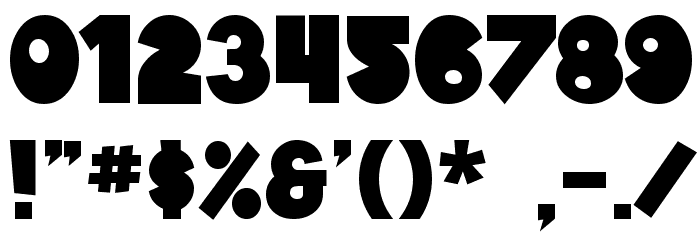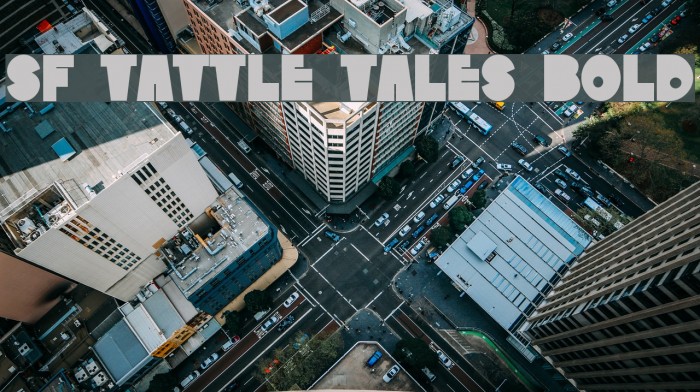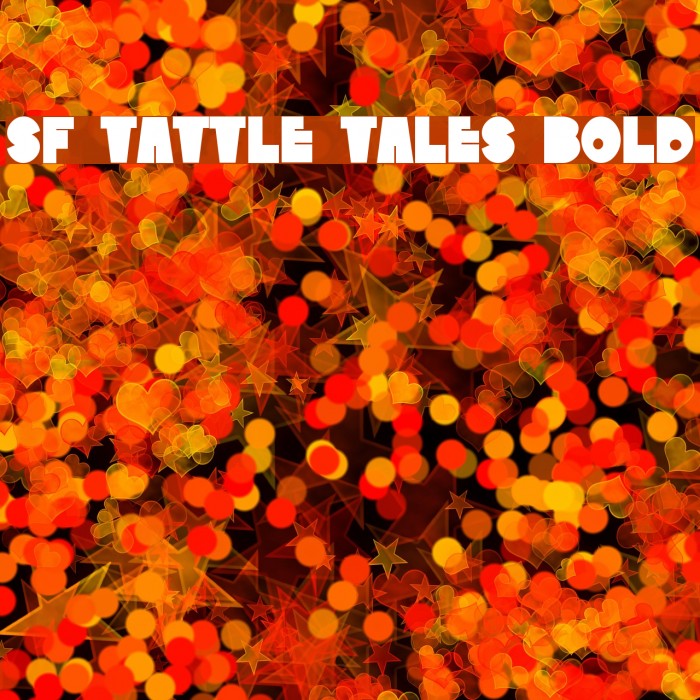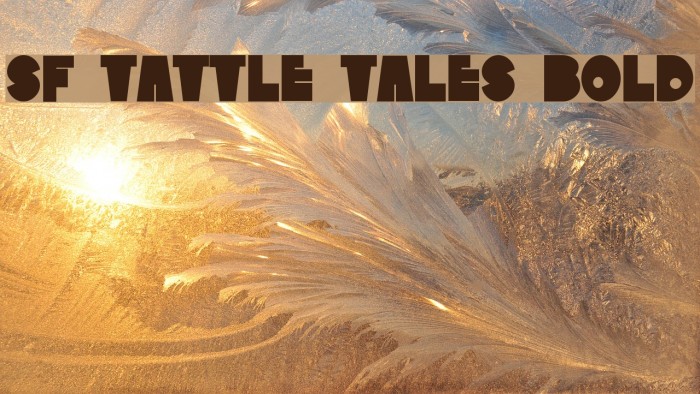
SF Tattle Tales Bold Font
This bold and striking font features thick, geometric letterforms with a playful and dynamic style. The characters are blocky and robust, with a strong presence that commands attention. The uppercase and lowercase letters maintain a consistent weight, creating a cohesive look across the alphabet. The numbers and special characters follow the same bold design, ensuring uniformity throughout. This font's unique style is characterized by its exaggerated shapes and angles, making it ideal for eye-catching designs.
A bold, geometric font with a playful and dynamic style.
- Proposed Projects: Ideal for posters, headlines, branding, and any project requiring a bold statement.
- Use Case: Headlines, Posters, Branding